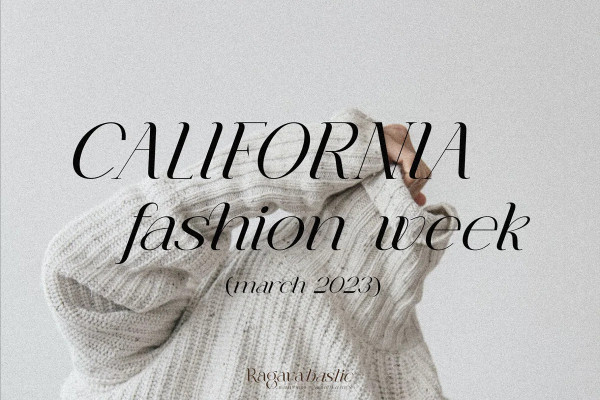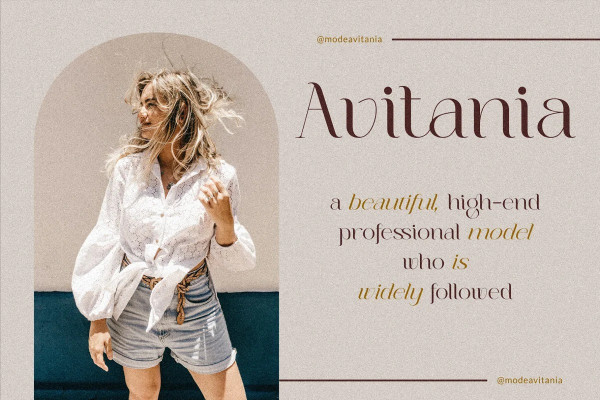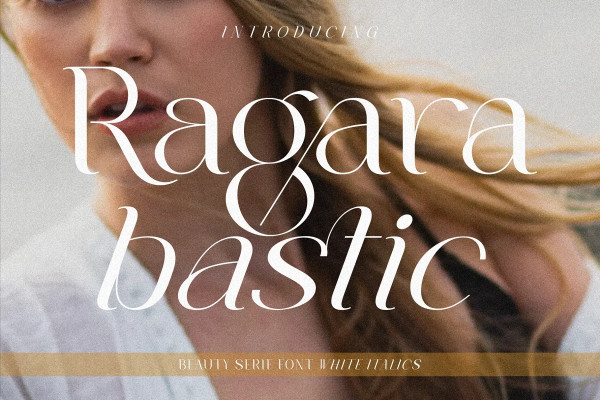
Ragara Bastic Font
Ragara Bastic Font, which is a beautiful and elegant blend of modern regular serifs and italic serifs. A clean-lined font with beautiful, minimalistic curves. The combination of these two font pairs will make your project come alive and look beautiful.